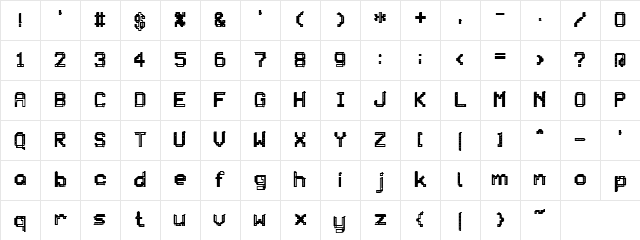
Complete PATCH_CRACK Regular glyph index. Displaying only characters natively supported by PATCH_CRACK Regular font.
PATCH_CRACK is a composed and adaptable typeface that performs quietly and consistently across a wide range of design contexts.